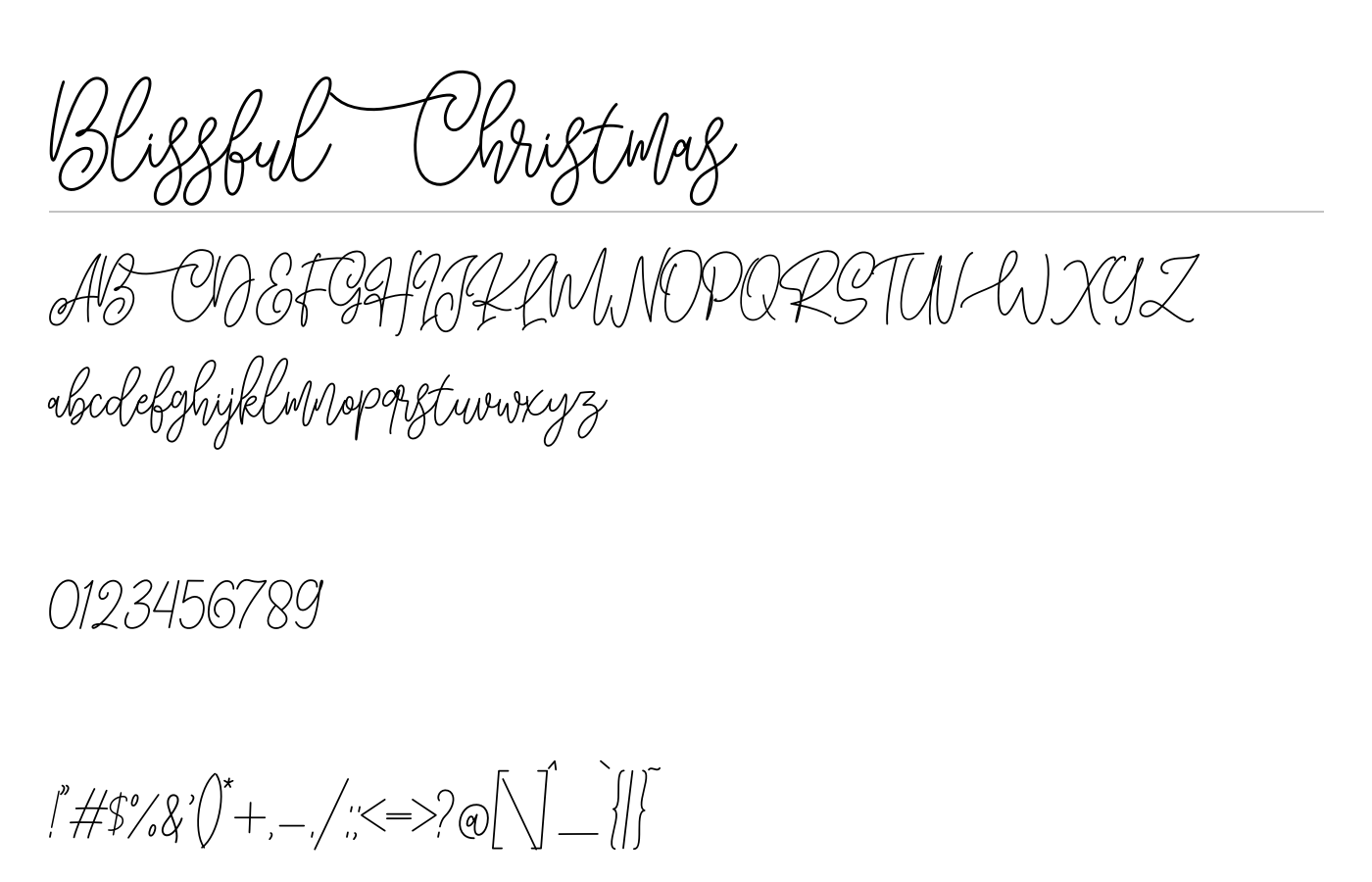
Blissful Christmas is a delicate, handwritten script font with a light, airy feel and graceful flowing strokes. Its tall, narrow letterforms and elegant connected characters evoke a warm, festive charm, making it ideal for holiday cards, invitations, and seasonal branding that seeks a personal, joyful touch. This font shines in decorative uses where a stylish and heartfelt appearance is desired.
Blissful Christmas Font
About Blissful Christmas Font